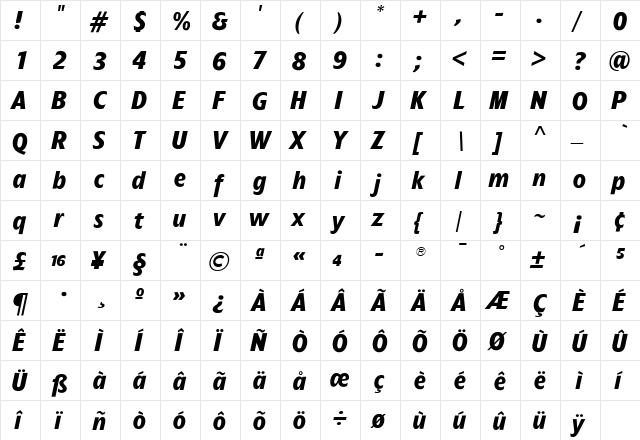
TFForeverTwo Bold Font Preview
TFForeverTwo Bold
TFForeverTwo Bold Font Details
| Foundry | J. Treacy,Treacyfaces,Inc |
| Year | 1988 |
Design Context for TFForeverTwo Typeface
TFForeverTwo takes a measured approach to typography — its balanced proportions and neutral character make it a reliable workhorse for both digital and print work. Its bold stroke weight gives it real presence on the page.